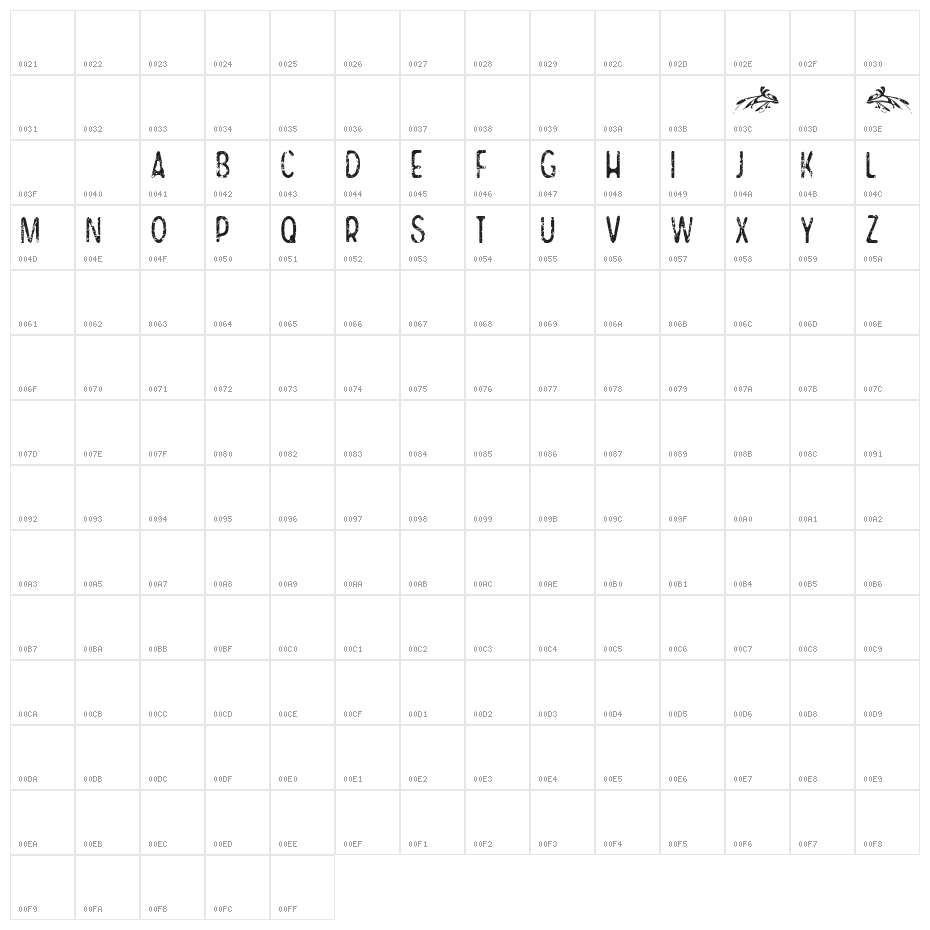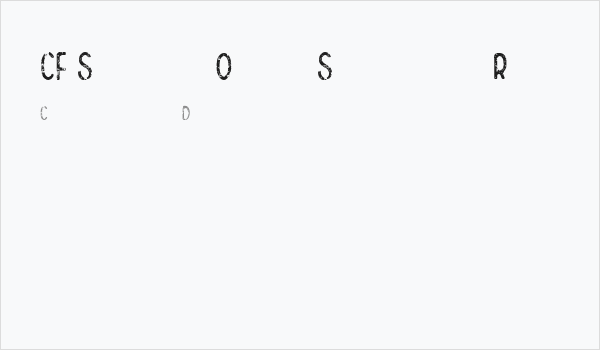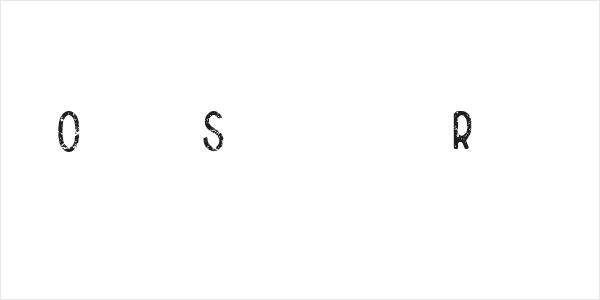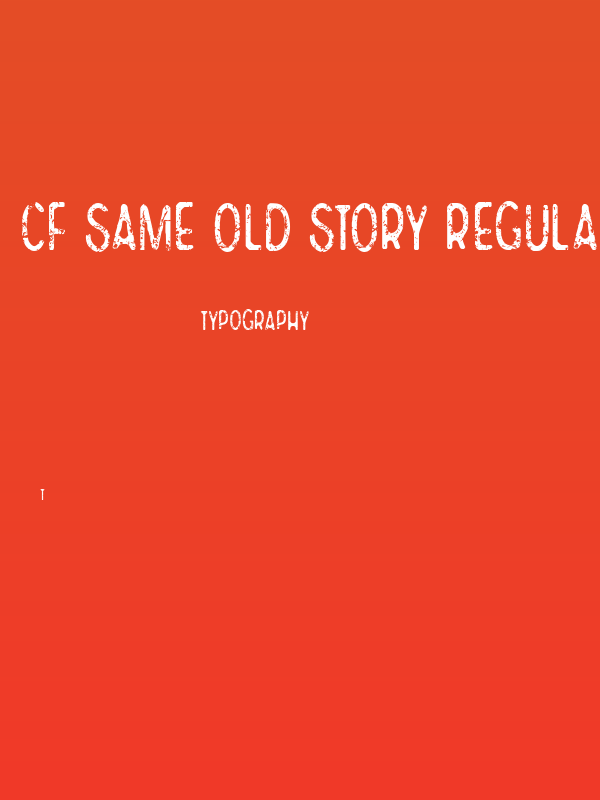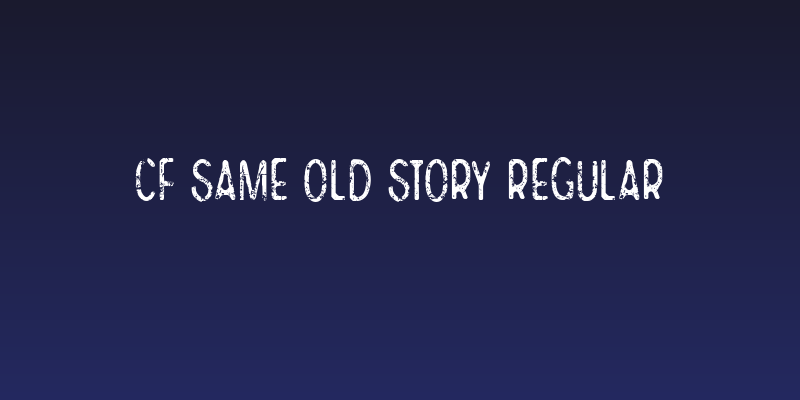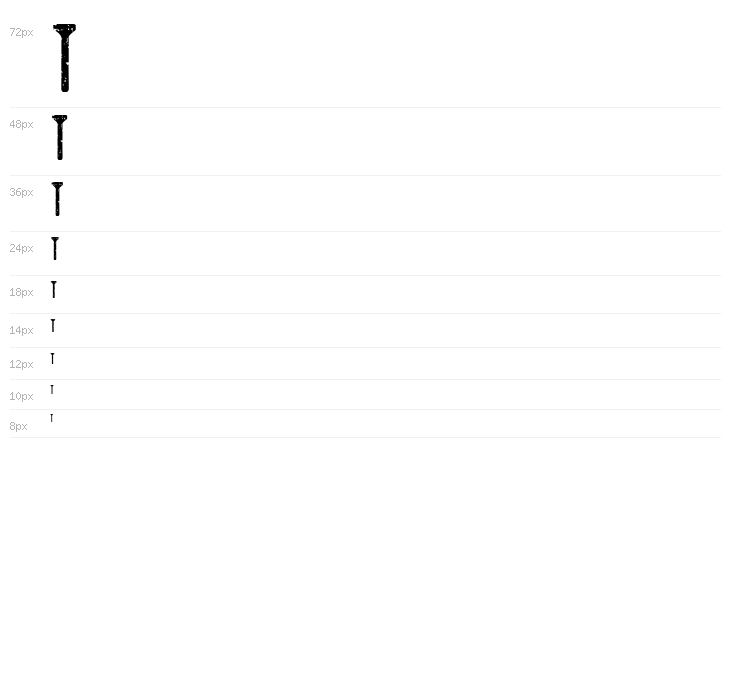
CF Same Old Story Regular Font
CF Same Old Story Regular Description
This font features a distressed, grunge style with a textured appearance that gives it a worn, vintage look. The uppercase letters are bold and slightly condensed, with irregular edges that add to its rugged charm. The texture varies across each letter, creating a unique and dynamic visual effect. This font is ideal for projects that require a bold statement with a touch of nostalgia or a handcrafted feel. Its distinctive style makes it suitable for artistic and creative designs.
| Overall Style | Vintage, Grunge |
| Proposed Projects | Ideal for posters, album covers, branding, and any project needing a vintage or grunge aesthetic. |